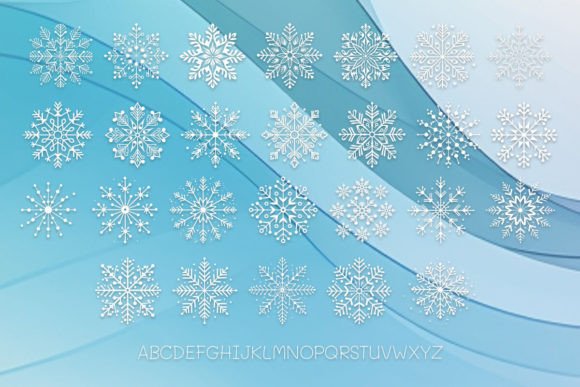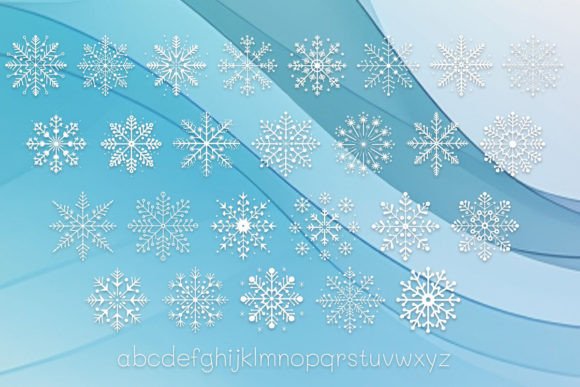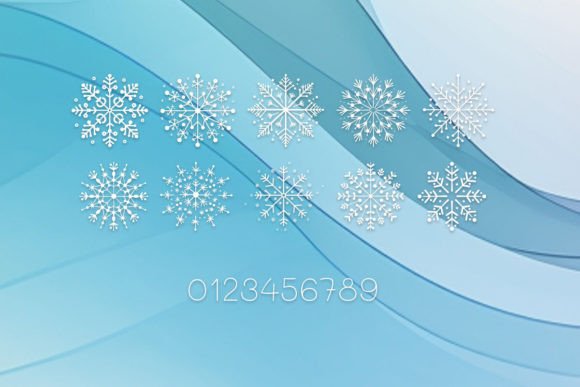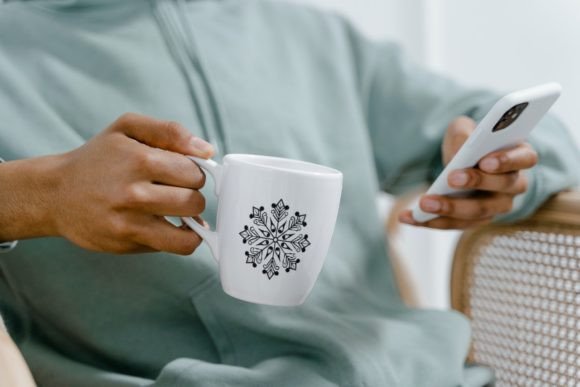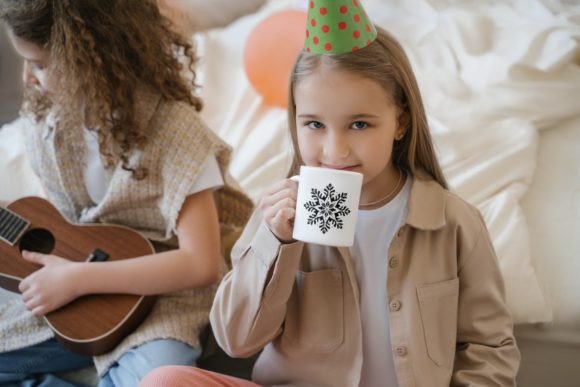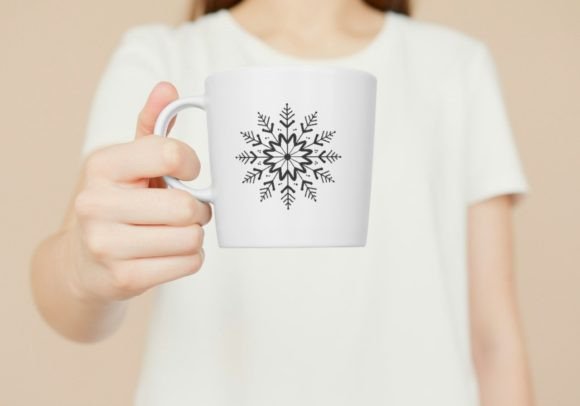
Introduction to Snowflakes of Happiness Font
Snowflakes of Happiness: 26 uppercase, 26 lowercase, 10 numbers (0-9).
A font adorned with unique snowflake designs, spreading joy and cheer Sprinkle happiness into your designs with this charming collection.
Key Features of Snowflakes of Happiness Font